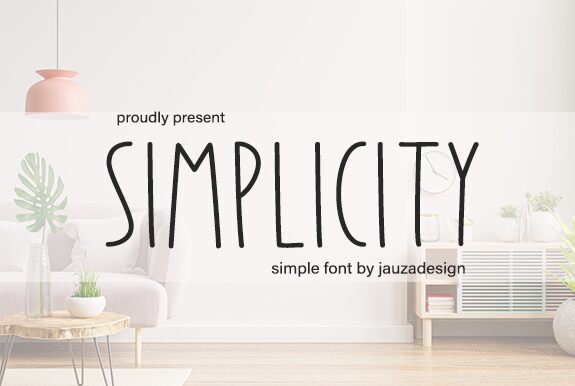
Simplicity Display, designed by Danar Nugroho, is a delightful handwritten font with an extra-light weight and condensed width. This charming typeface is perfect for projects that require a touch of elegance and sophistication.
Use Simplicity Display to add a personal and unique flair to wedding invitations, greeting cards, or fashion brand logos. Its delicate strokes and compact design make it ideal for creating eye-catching headlines in magazines or advertisements.
Let Simplicity Display bring a graceful and refined aesthetic to your creative endeavors.